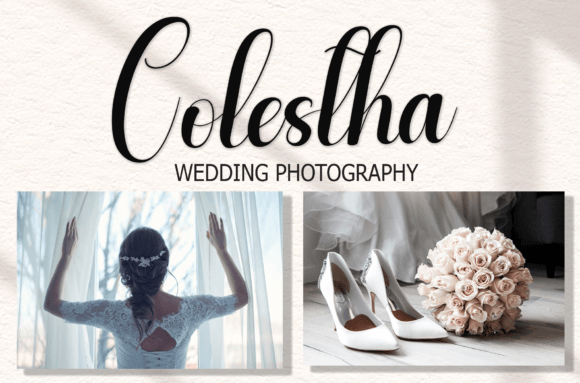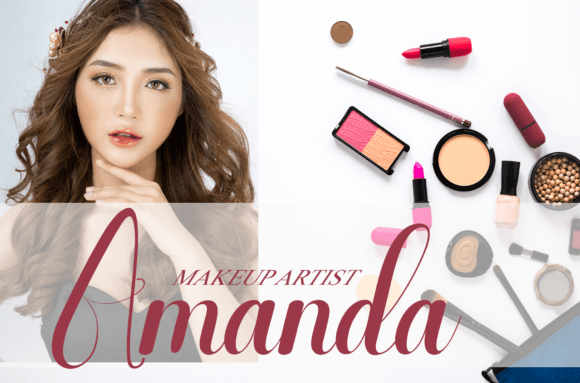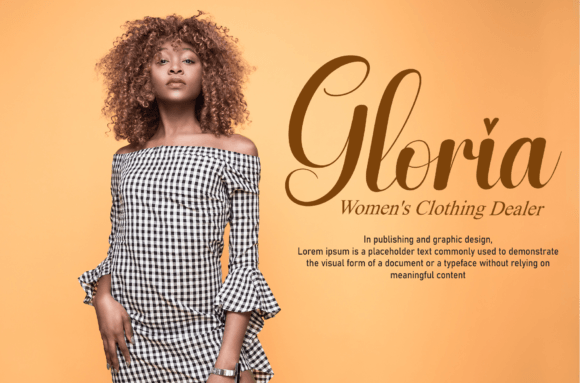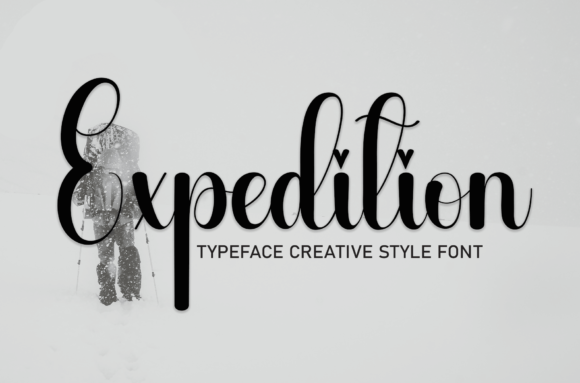
Introduction to Expedition Font
Expedition is a sweet and friendly handwritten font.
Fresh and neat, this font is ideal for writing wedding invitations, cards, or any other design that might need a fun touch .
Expedition Font offers exceptional quality and versatility, making it a valuable addition to your design toolkit. Whether you’re creating for personal projects or commercial use, Expedition Font delivers professional results.